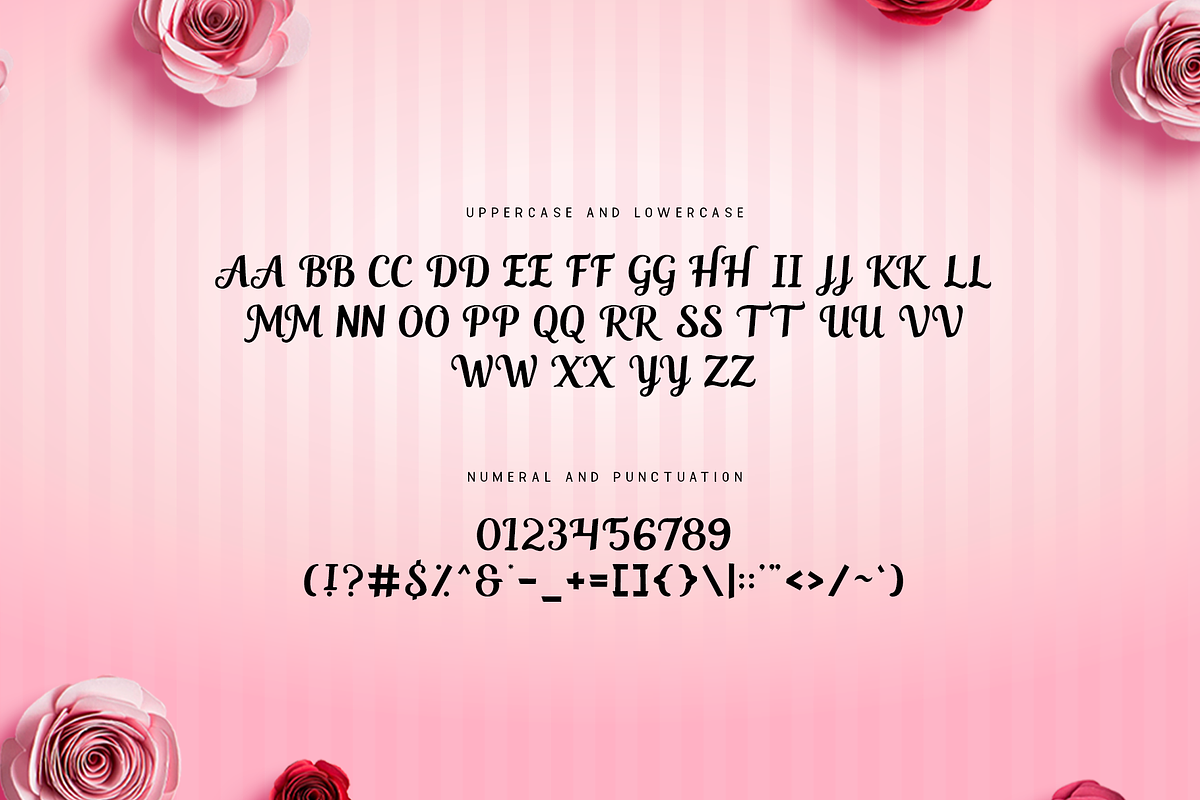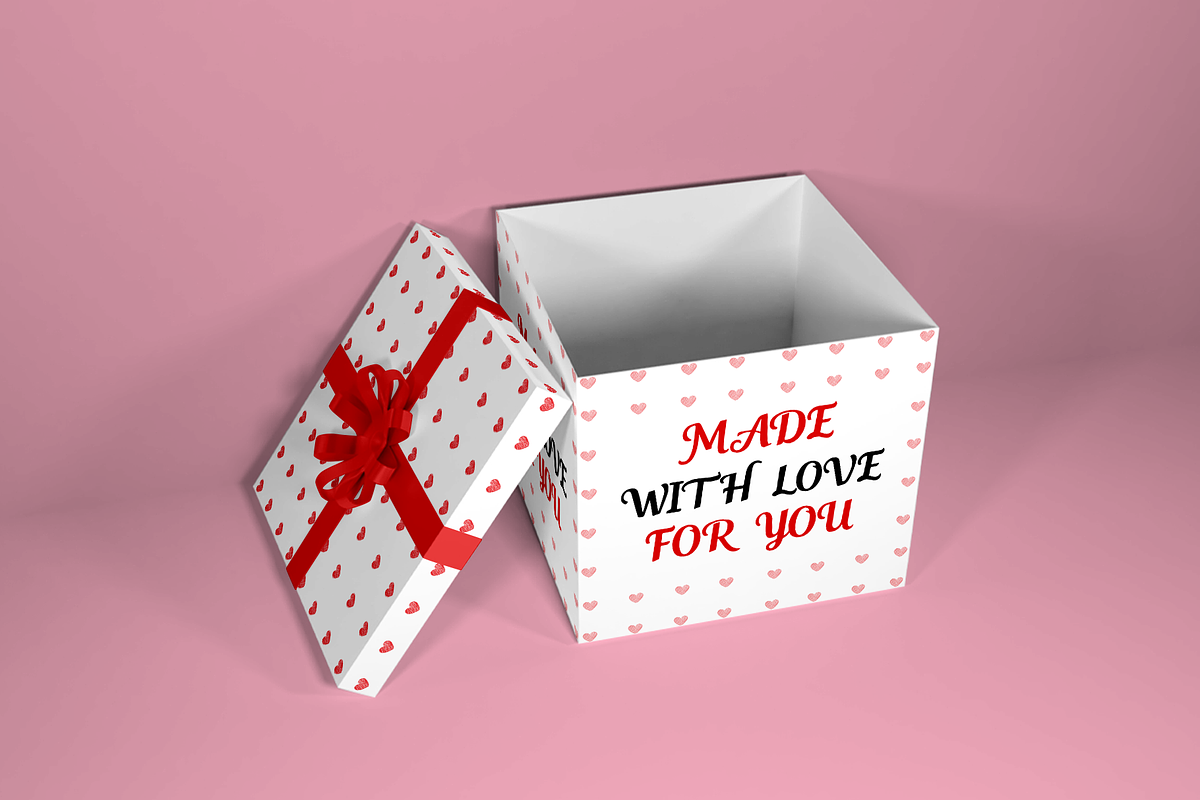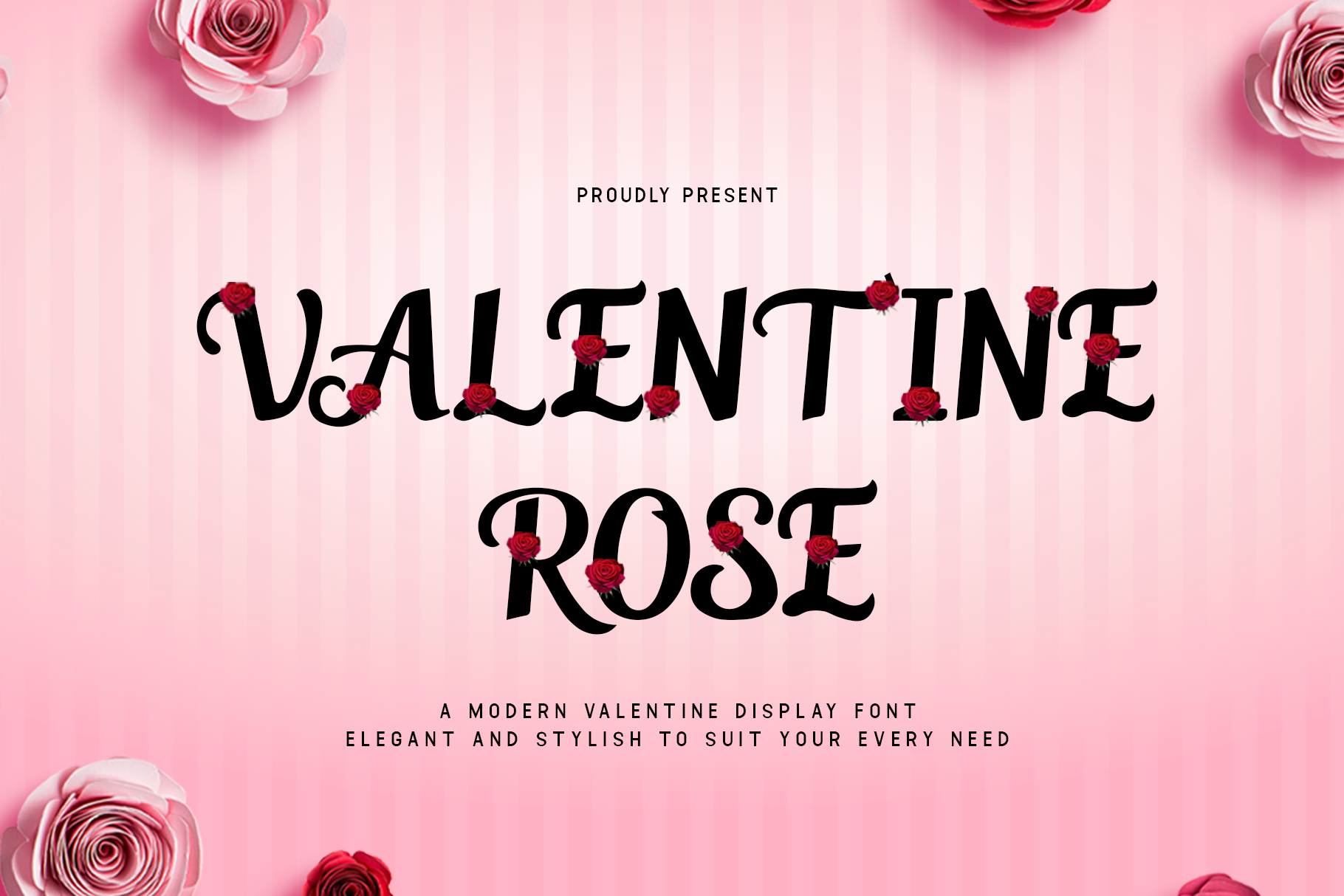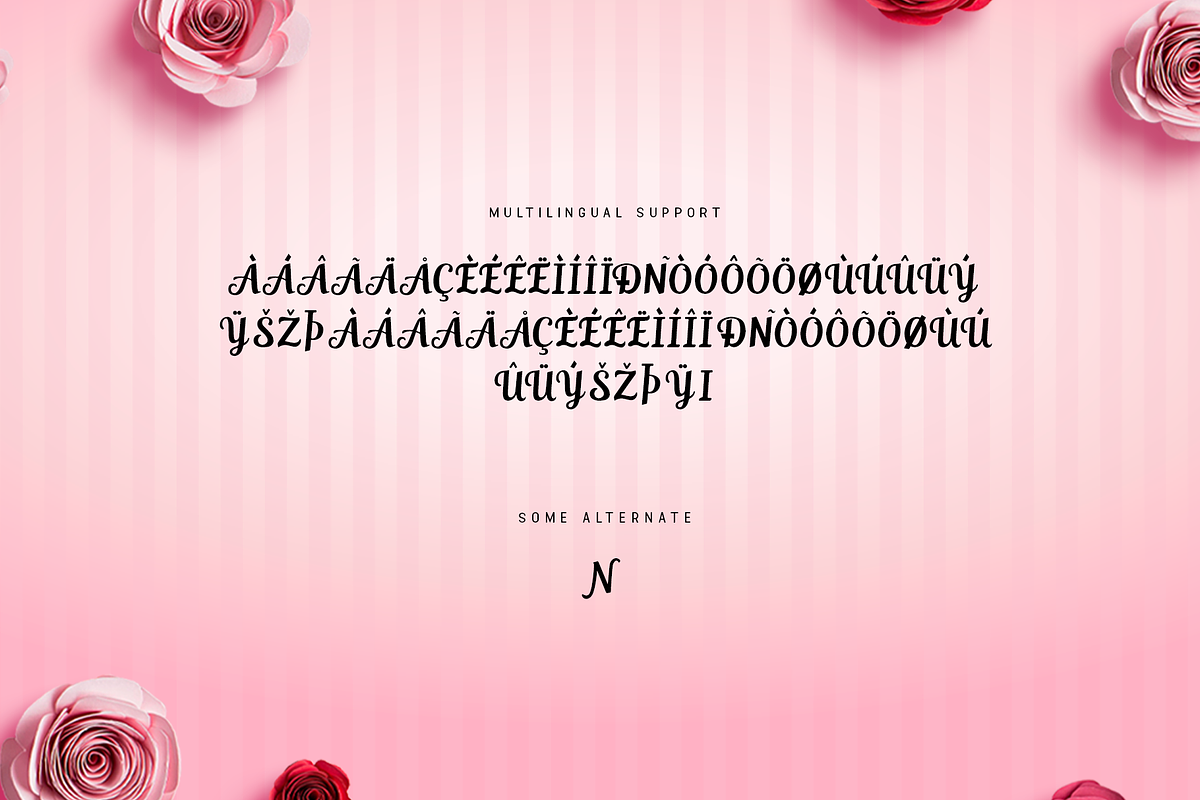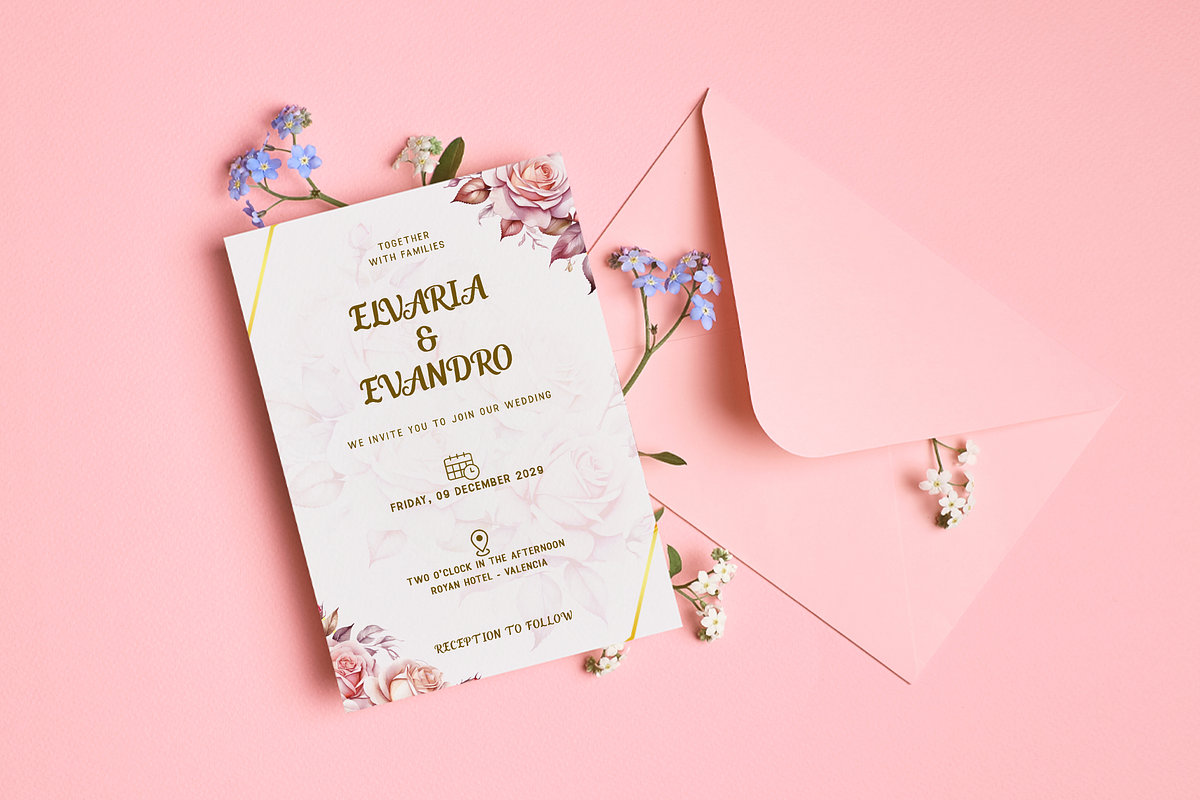
Valentine Rose-Modern Valentine Font
Valentine Rose - A Modern Valentine Display Font
Introducing Valentine Rose, a modern Valentine display font inspired by the timeless beauty of roses. This typeface features elegant floral-inspired details and romantic curves, perfect for celebrating love and special moments.
Ideal for wedding designs, romantic branding, Valentine’s Day cards, and decorative posters, Valentine Rose brings a touch of elegance and passion to your creations. Its delicate yet bold style ensures your projects stand out with timeless charm.
With a full character set, multilingual support, and floral-inspired accents, Valentine Rose is perfect for adding blooming romance to your designs.